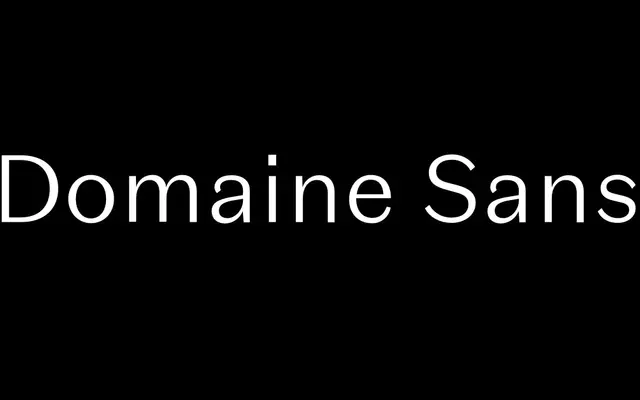
Domaine Sans Text
Klim Type Foundry · Kris Sowersby · 2014
Domaine Sans Text specimen from Klim Type Foundry
The text cut of Domaine Sans, with reduced contrast and small caps for body copy that still carries the family's editorial voice.
The Text optical size of Domaine Sans by Kris Sowersby, with the family's contrast tempered for body sizes and small caps added for editorial setting. Ten styles span Light to Black with matching italics, alongside small caps, all small caps, tabular figures and superiors. Reads with the warmth and authority of a serif text face while staying inside the sans genre, which is why it pairs neatly with Domaine Display, Domaine Text and Tiempos Text in editorial systems.
Klim classifies it as Lineal: Grotesque, High Contrast; the text optical size of Domaine Sans, sharing the family's exploration of sans serifs with contrast and adding small caps for setting body copy.